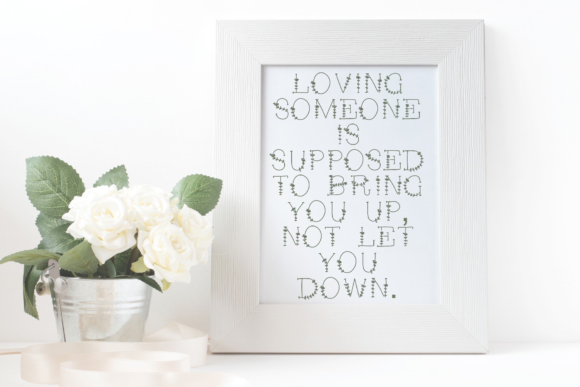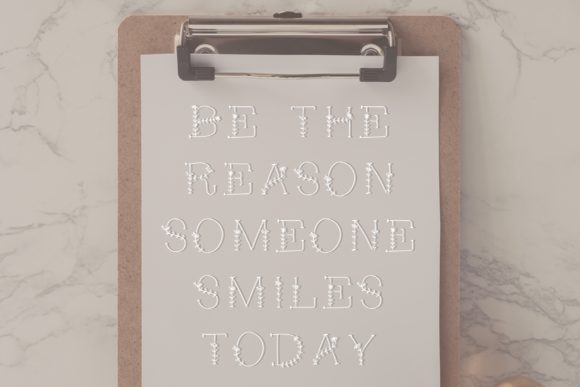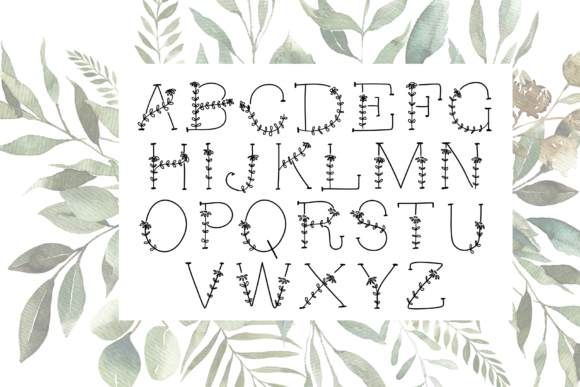
Introducing Flower and Leaves Font: Elevate Your Designs with Delicate Charm
Are you a designer, crafter, or DIY enthusiast looking for a font that can add a touch of elegance and whimsy to your projects? Look no further than the Flower and Leaves Font, a stunning decorative font that features intricate leaf ornaments. With its incredibly versatile style, this font is perfect for creating beautiful wedding invitations, stationary art, social media posts, and more.
What Makes Flower and Leaves Font So Special?
The Flower and Leaves Font is a delicate and beautiful decorative font that is sure to capture your heart. Its unique design features leaf ornaments that add a touch of nature and elegance to any project. The font is perfect for designers and crafters who want to create stunning visual content that stands out from the crowd.
Uses for Flower and Leaves Font
The versatility of the Flower and Leaves Font is one of its most appealing features. Here are just a few ideas for how you can use this beautiful font in your designs:
- Wedding Invitations: Create gorgeous wedding invitations that set the tone for a beautiful and elegant wedding. The Flower and Leaves Font is perfect for printing on high-quality paper or cardstock.
- Stationary Art: Add a touch of whimsy and charm to your stationary art with the Flower and Leaves Font. Use it to create beautiful greeting cards, thank you cards, and more.
- Social Media Posts: Make your social media posts stand out with the Flower and Leaves Font. Use it to create eye-catching graphics, quotes, and more.
- DIY Projects: The Flower and Leaves Font is perfect for DIY enthusiasts who love to craft and create. Use it to add a personal touch to your projects, such as handmade cards, gift tags, and more.
Why Choose Flower and Leaves Font?
There are many reasons why the Flower and Leaves Font is a great choice for designers and crafters. Here are just a few:
- Unique Design: The Flower and Leaves Font features a unique design that is sure to set your projects apart from the crowd.
- Versatility: The font is incredibly versatile and can be used in a variety of projects, from wedding invitations to social media posts.
- Elegant and Whimsical: The Flower and Leaves Font has a beautiful, elegant feel that is perfect for adding a touch of whimsy and charm to your projects.
Tips for Using Flower and Leaves Font
Here are a few tips for using the Flower and Leaves Font in your designs:
- Experiment with Different Sizes: The Flower and Leaves Font looks great in a variety of sizes, so don’t be afraid to experiment and find the perfect size for your project.
- Pair with Other Fonts: The Flower and Leaves Font pairs well with other fonts, so try pairing it with a bold font for a striking contrast.
- Use in Combination with Images: The Flower and Leaves Font looks great in combination with images, so try using it to add a touch of elegance to your photos and illustrations.
The Flower and Leaves Font is a beautiful and versatile decorative font that is perfect for designers and crafters who want to add a touch of elegance and whimsy to their projects. With its unique design, versatility, and ease of use, this font is sure to become a favorite in your design arsenal. So why wait? Download the Flower and Leaves Font today and start creating stunning visual content that will leave a lasting impression.